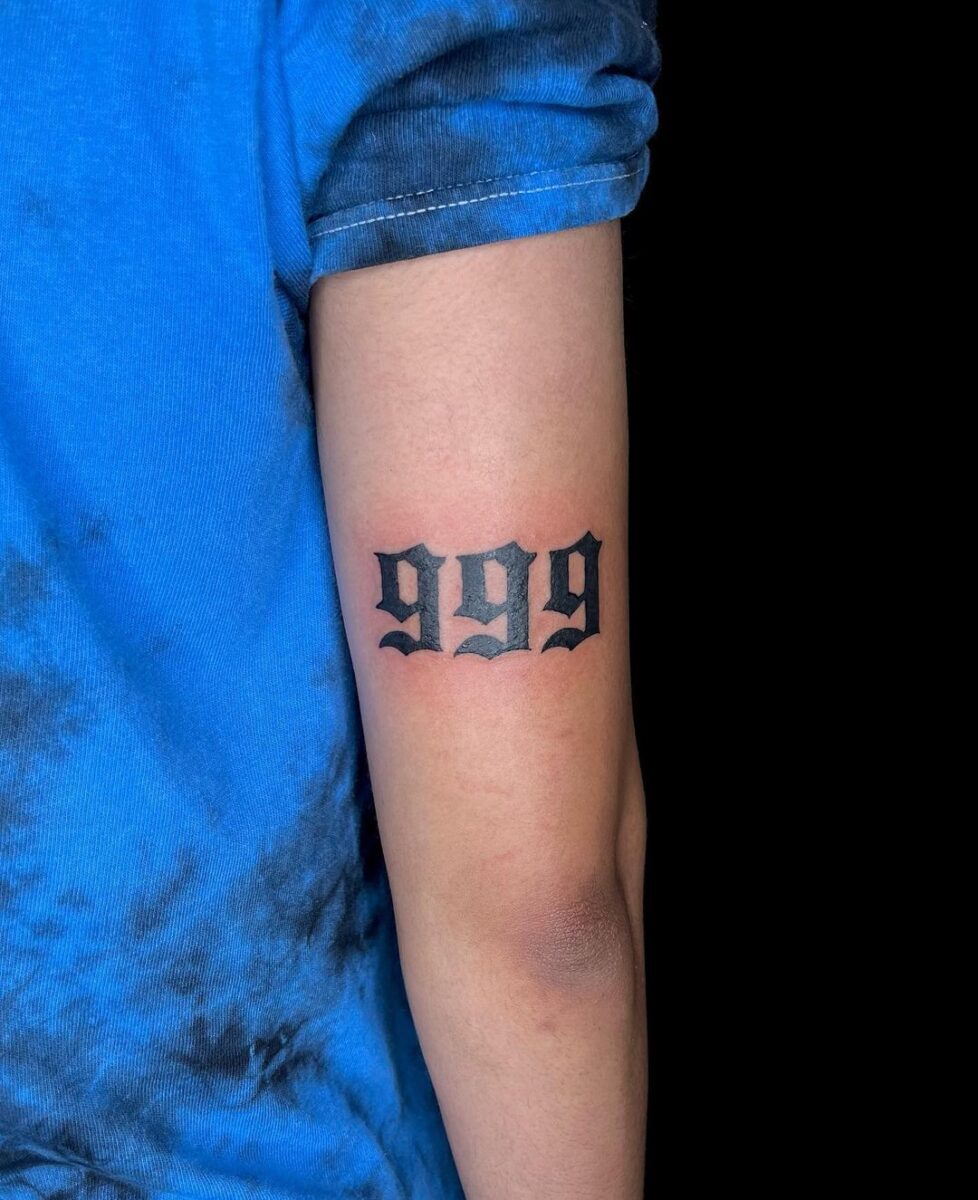
In the world of tattoos, font choice transforms a simple design into a powerful visual statement. With 999 tattoo fonts available, artists and tattoo lovers alike can find the perfect style that reflects personality, heritage, or artistic flair—making every curve and line count.
The 999 tattoo fonts available today span a vast range—from classic serifs echoing old-world craftsmanship to bold, modern sans serifs designed for sharp, geometric impact. Whether you prefer vintage calligraphy, tribal symbols, or futuristic typography, this extensive selection allows for unparalleled customization. Fonts like bold script, angular block, and delicate hand-drawn styles each bring distinct emotion and meaning, enabling meaningful personal expression through body art.
Choosing the right tattoo font involves more than aesthetics—it’s about harmony with skin placement, skin tone, and personal narrative. Fonts with dense detail work best on larger areas like the back or thigh, while streamlined styles suit smaller canvases like the wrist or forearm. Understanding contrast, spacing, and line weight ensures legibility and visual balance, turning a simple shape into a lasting masterpiece that complements your story.
Current trends favor fusion fonts blending classic elements with digital innovation—think neon accents on vintage typefaces or fractal patterns within bold letterforms. Customizable digital fonts are also on the rise, allowing artists to adapt and personalize each design uniquely. These evolving styles reflect deeper cultural narratives, making tattoo fonts not just decorative, but deeply symbolic choices in modern body art.